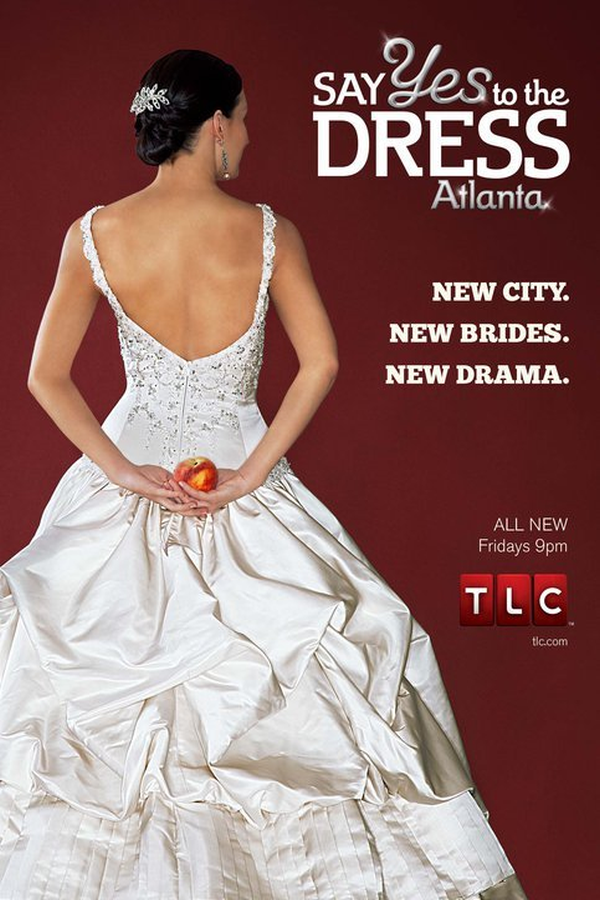
Say Yes to the Dress Font
Fonts in UseSay Yes to the Dress is a popular American reality television series that premiered on TLC in 2007. The show follows brides-to-be as they search for their perfect wedding dress at Kleinfeld Bridal in Manhattan, with the help of bridal consultants and family members.
The title font (excluding the cursive "yes") is likely Theorem by Alejandro Paul. It's an art deco typeface with a 1990s twist in its capitals and optimized optical spacing in its lowercase characters. More details about the typeface can be found here.